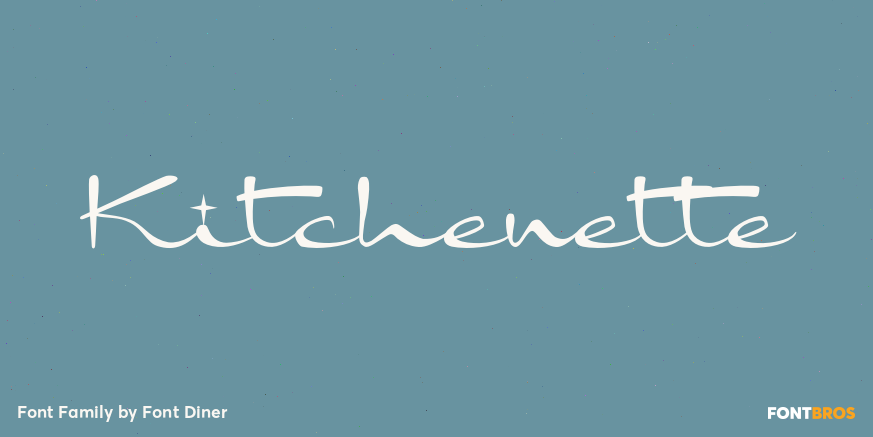
HomeFont BrosRetro (1936-1965)Kitchenette Retro (1936-1965)Scripts: Casual Kitchenette FacebookXPinterestWhatsApp 1 of 1 About Kitchenette Enjoy the speed and modern conveniences of Kitchenette, a fine connecting handwritten retro script sure to please any smart homemaker!  DOWNLOAD ON FONT BROSThis font is sold and delivered by Font Bros. Font Canyon may earn a commission if you buy through this link. People also explored Manolo Light Font About Aidah Font Darling Butter Valens Day Font Dolleane Smille Font Zero Umbrella Font Pratiwi Font Merry Font 289 0 TagsKitchenette Font Previous articleTakeshiNext articleConcertina LEAVE A REPLY Cancel reply Comment: Please enter your comment! Name:* Please enter your name here Email:* You have entered an incorrect email address! Please enter your email address here Website: Save my name, email, and website in this browser for the next time I comment. Personal Use Free Juliagar Personal Use Free Read more about this font Beloved Script Personal Use Free Read more about this font Satori Personal Use Free Read more about this font Sarwendah Personal Use Free Read more about this font BLOG Free Fonts Risk: Why Free Fonts Can Be Dangerous for Designers Free Fonts Risk: Why Free Fonts Can Be Dangerous for Designers Using free fonts is a common practice in web and graphic design. However, the... How to Cut Any Font on Cricut: Convert a Font to SVG (Free) Top 7 Google Fonts Alternatives for Faster and Privacy-Friendly Web Design (2025) Transform Your Website: Elevate Your Typography with 7 Best Web Font Generators